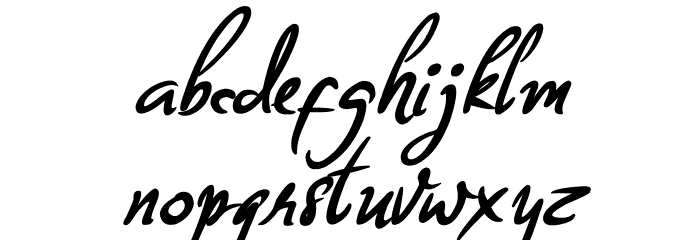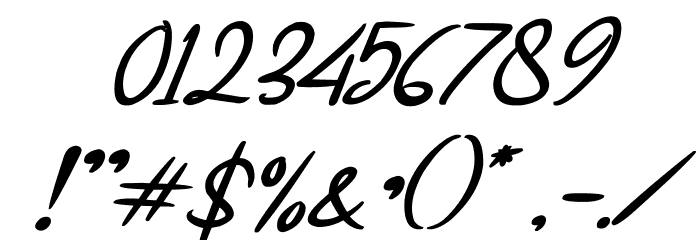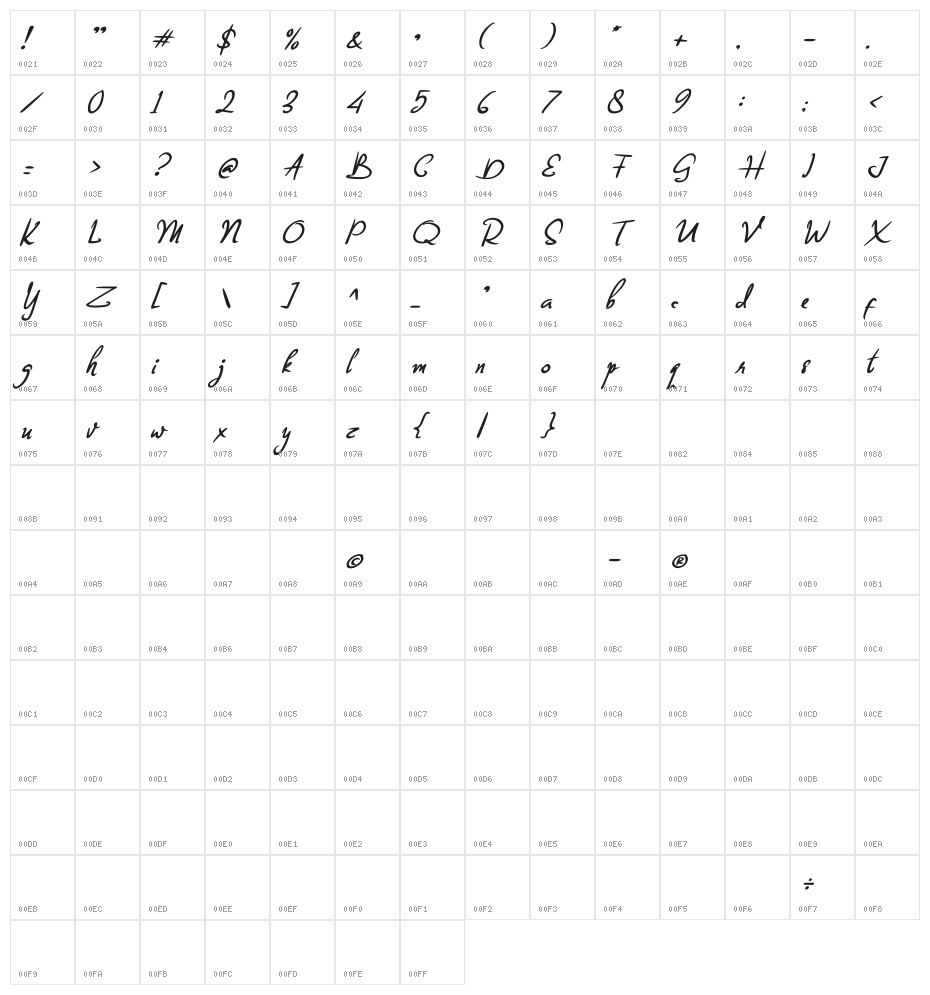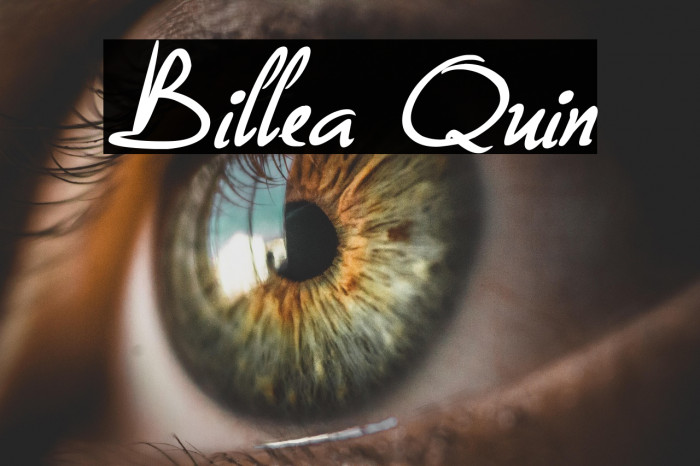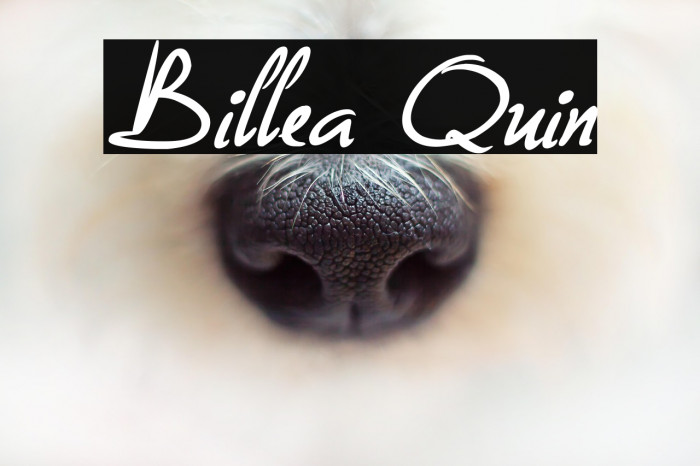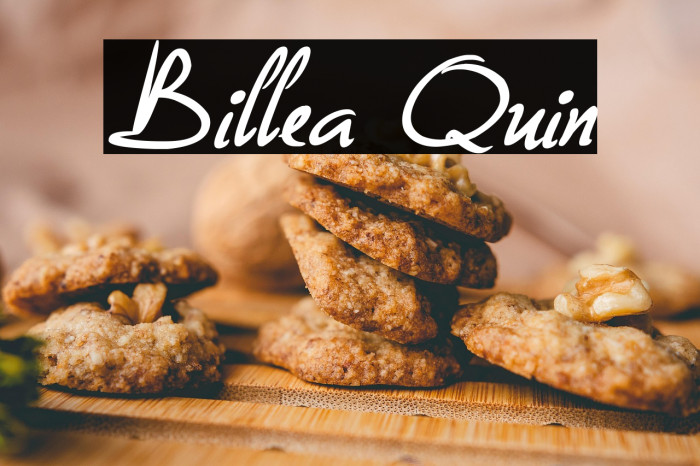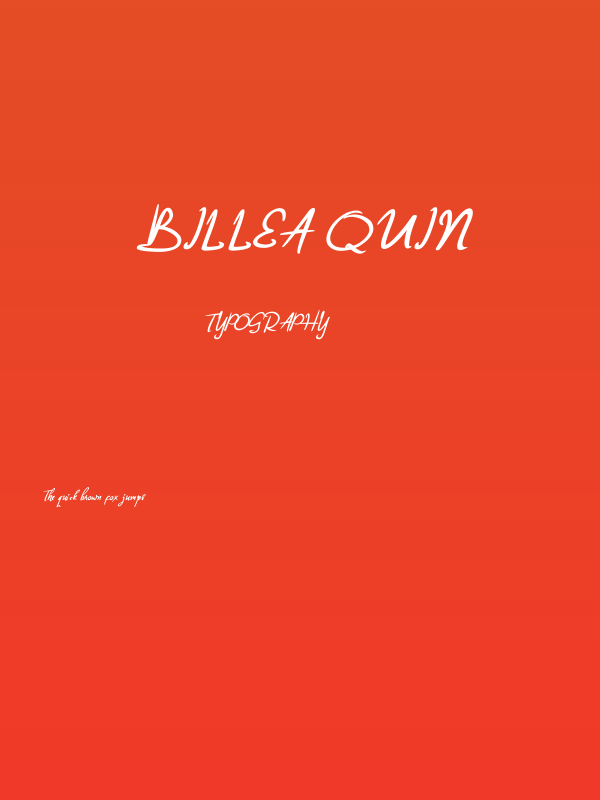
Billea Quin Font
This font exudes a dynamic and expressive style, characterized by its fluid, cursive strokes that mimic the elegance of handwritten script. The letters are slightly slanted, adding a sense of movement and grace. The uppercase letters are bold and prominent, while the lowercase letters maintain a consistent flow, enhancing readability. The numerals and special characters are crafted with the same attention to detail, ensuring a cohesive appearance across all elements. This font's unique style makes it suitable for projects that require a personal touch or a sense of sophistication.
A dynamic, cursive script font with fluid, elegant strokes.
- Proposed Projects: Ideal for wedding invitations, personal branding, greeting cards, and artistic projects.
- Use Case: Logos, Invitations, Artistic projects